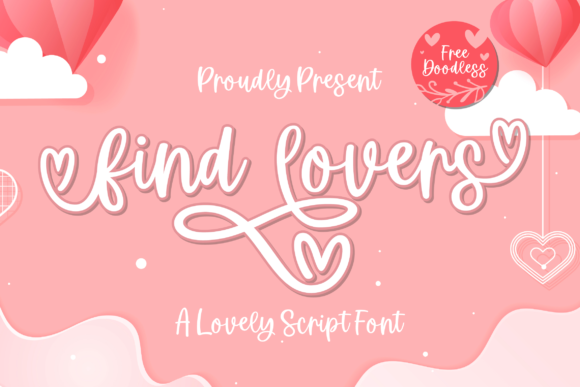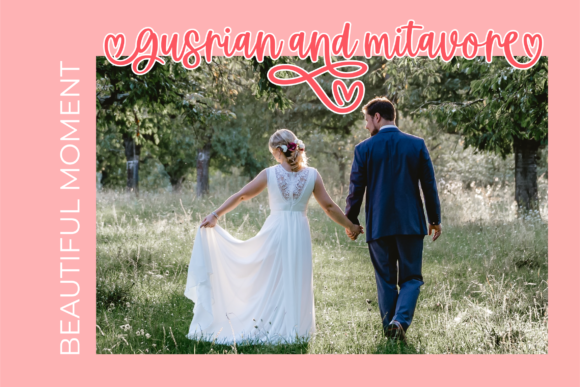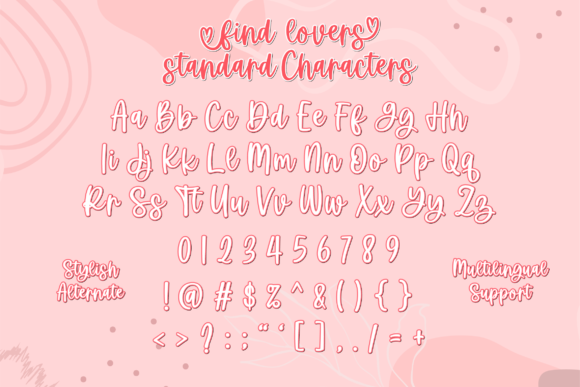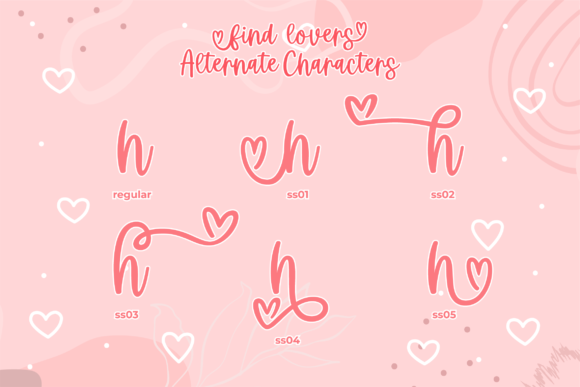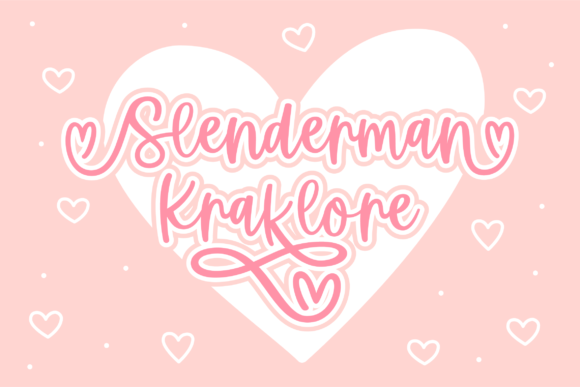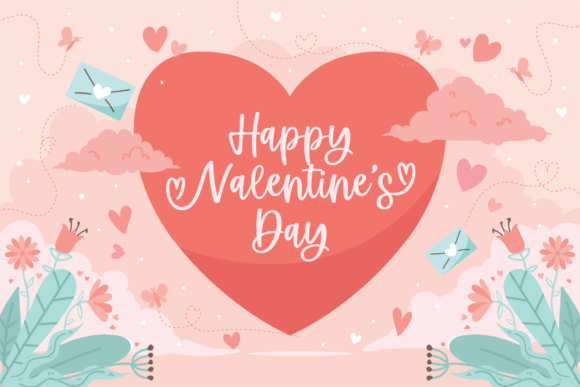
Discover the Perfect Match: Find Lovers Font
Have you ever found yourself stuck in a creative rut, searching for the perfect font to bring your design to life? I know I have! The frustration of scrolling through countless options, only to settle for something that’s just okay, can be overwhelming. But what if I told you there’s a font that’s about to become your new go-to, your design BFF?
Meet Find Lovers Font, a stunning script font that exudes elegance and sophistication. Whether you’re crafting a logo, designing wedding invitations, or creating social media posts, this font is sure to elevate your work. With its classy, modern look and PUA encoding, you’ll have access to all the glyphs and swashes you need to make your designs truly special. Find Lovers Font is a game-changer for designers looking to add a touch of whimsy and romance to their work.
Key Features of Find Lovers Font
- Font Family: Find Lovers Font is a unique, hand-drawn script font designed to evoke a sense of romance and whimsy.
- Character Set: Includes a wide range of characters, including uppercase and lowercase letters, numbers, punctuation marks, and special characters.
- Font Size: Designed to be used at font sizes ranging from 12 to 48 points, making it suitable for a variety of design applications.
- Resolution: Optimized for high-resolution displays, making it perfect for use in digital design projects such as website headers, social media graphics, and mobile app interfaces.
- Unique Characteristics: Features a distinctive, flowing script style with subtle flourishes and irregularities that add to its romantic and whimsical feel.
Find Lovers Font Review
Overall, I think the Find Lovers Font has some great qualities, but it also has some areas that could be improved.
- The Find Lovers Font has a unique and playful vibe that could be perfect for a trendy brand or design project.
- The font’s irregular shapes and swashes add a touch of personality and whimsy to any text.
- The font’s versatility means it can be used for a variety of purposes, from logos to titles to body text.
- The font’s irregular shapes and swashes can make it difficult to read, especially in larger sizes or for long blocks of text.
- The font’s unique style may not be to everyone’s taste, and some users may find it too playful or distracting.
While the Find Lovers Font has some great qualities, I think it’s best suited for projects where a playful, trendy vibe is a must-have. For more serious or formal designs, I might choose a different font. With some tweaks to readability and file size, I think this font could be even more effective.
Find Lovers Font Practical Application Guide
Tips for Getting the Most Out of Find Lovers Font
To get the most out of Find Lovers Font, try experimenting with different font sizes, colors, and styles. You can also use the font in combination with other design elements to create a unique and eye-catching visual effect.
Find Lovers Font is perfect for creating romantic and whimsical designs, such as wedding invitations, love letters, and valentine’s day cards. It can also be used in other creative projects, such as art prints, posters, and social media graphics.